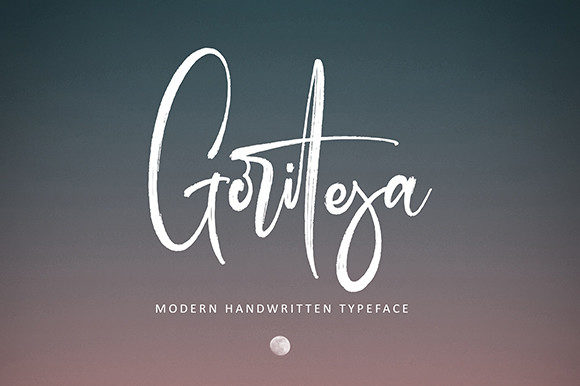
Goritesa Font: Elevate Your Designs with Elegance and Sophistication
In the world of typography, fonts play a crucial role in conveying the tone and personality of a design. For designers and crafters seeking to add a touch of elegance and sophistication to their creations, the Goritesa Font is an exceptional choice. This distinct, graceful script font is sure to captivate audiences with its ravishing style, making it perfect for a wide range of design applications.
The Beauty of Goritesa Font
Goritesa Font boasts a unique and refined aesthetic that sets it apart from other script fonts. Its elegant lines, flowing curves, and precise craftsmanship come together to create a truly stunning visual experience. Whether you’re working on a branding project, crafting beautiful stationery, or designing eye-catching posters, Goritesa Font is sure to elevate your designs to new heights.
One of the standout features of Goritesa Font is its PUA (Private Use Area) encoding. This means that designers can access all glyphs and swashes with ease, allowing for greater flexibility and creativity in their work. With PUA encoding, you can effortlessly navigate the font’s extensive character set, including alternative letters, ligatures, and ornaments, to create truly unique and personalized designs.
The versatility of Goritesa Font is one of its most compelling advantages. This font can be used in a wide range of design applications, from:
- Branding and Logos: Create memorable and sophisticated brand identities with Goritesa Font’s elegant script style.
- Stationery and Invitations: Add a touch of luxury and refinement to your stationery, invitations, and greeting cards.
- Posters and Flyers: Make a statement with eye-catching posters and flyers that showcase Goritesa Font’s beautiful curves and lines.
- Packaging and Labels: Elevate your product packaging and labels with a font that exudes elegance and sophistication.
Why Choose Goritesa Font?
With so many fonts available, why choose Goritesa Font for your design projects? Here are just a few reasons:
- Unique and Distinctive: Goritesa Font offers a fresh and distinctive take on traditional script fonts.
- Elegant and Sophisticated: Add a touch of luxury and refinement to your designs with Goritesa Font’s ravishing style.
- Highly Versatile: Use Goritesa Font in a wide range of design applications, from branding and stationery to posters and packaging.
In conclusion, Goritesa Font is a stunning script font that offers designers and crafters a unique and elegant solution for their design needs. With its PUA encoding, ravishing style, and versatility, Goritesa Font is sure to become a go-to choice for anyone seeking to elevate their designs to new heights. So why wait? Fall in love with Goritesa Font and discover a world of limitless design possibilities.